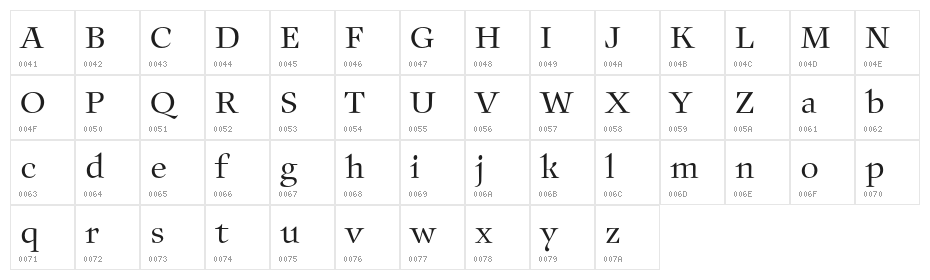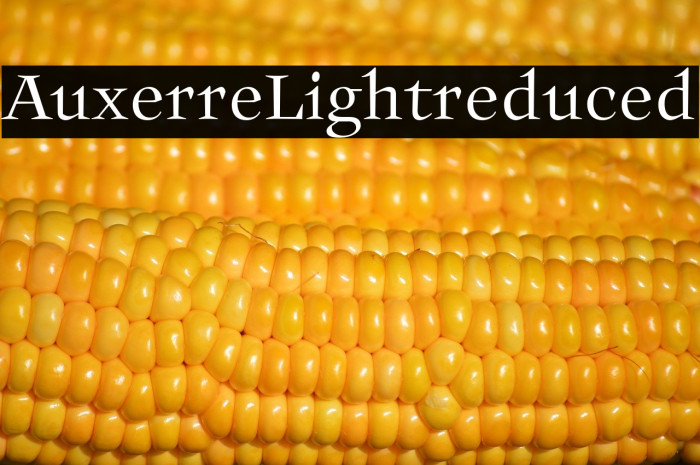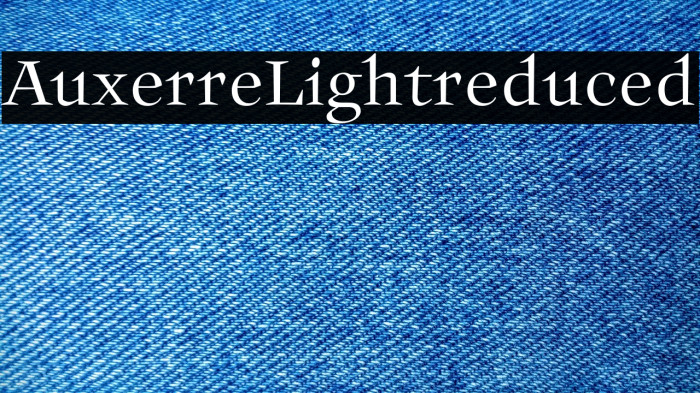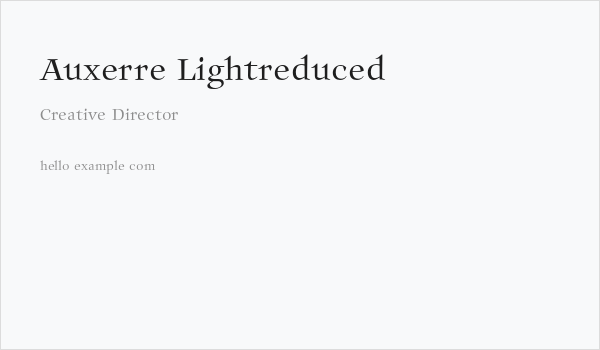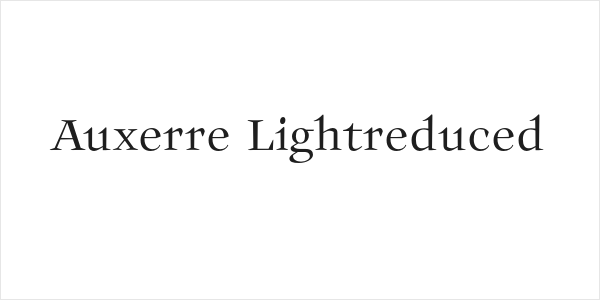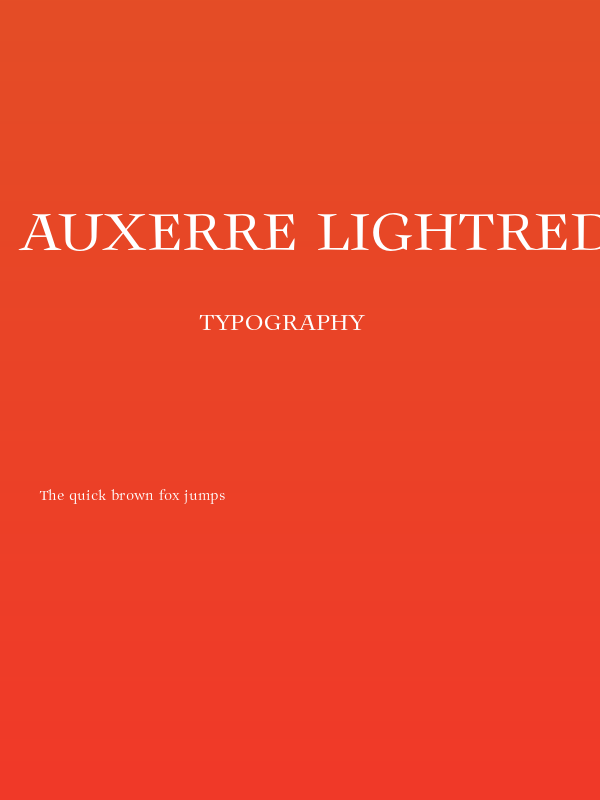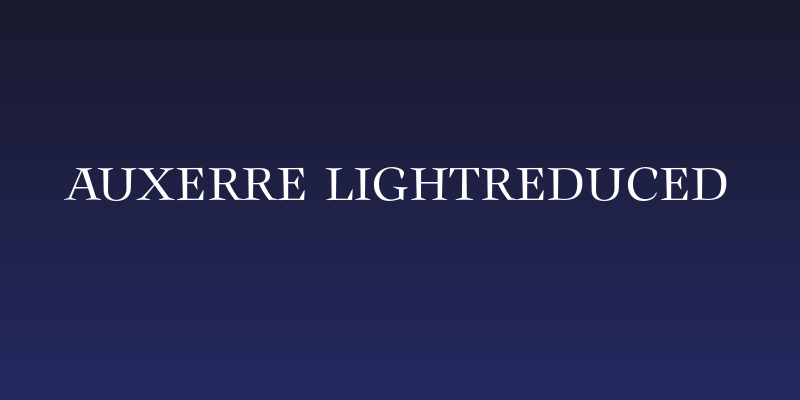
Auxerre-Lightreduced Font
Auxerre-Lightreduced Description
This font exhibits a classic serif style with elegant and refined letterforms. The characters are well-proportioned, featuring thin and delicate serifs that add a touch of sophistication. The uppercase letters are bold and commanding, while the lowercase letters maintain a graceful flow. The numerals are clear and consistent with the overall design, ensuring readability. Special characters are thoughtfully integrated, maintaining the font's cohesive aesthetic. This typeface is versatile, suitable for both formal and creative applications, offering a timeless appeal.
| Proposed Projects | Ideal for editorial design, book covers, formal invitations, and branding projects that require a touch of elegance. |